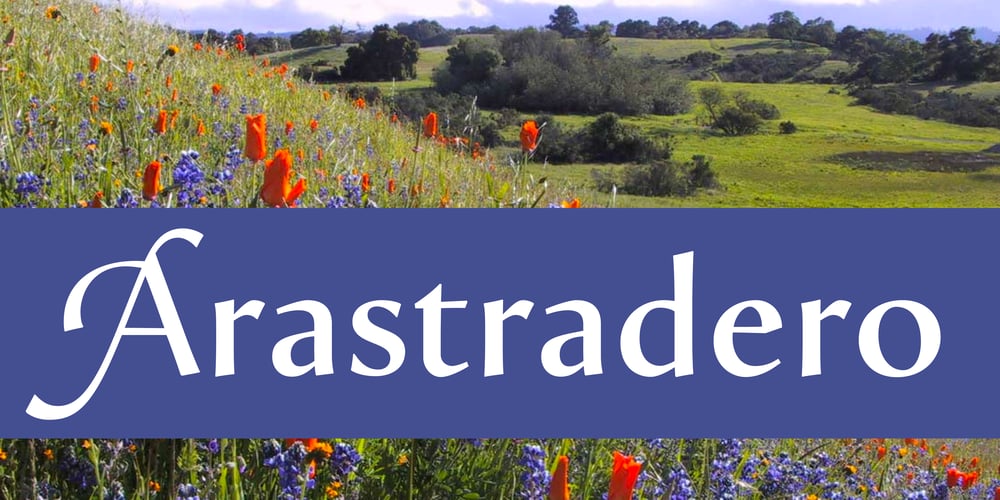
Arastradero Font Family was designed by Steve Matteson and published by Matteson Typographics. Arastradero contains 6 styles and family package options. Arastradero is a typeface based on broad-nib pen lettering and calligrapy. Classical proportions and shapes imbue a sense of trustworthiness and elegance to titles and text. Similar to Lydian, Arastradero is more elegant for text setting. Arastradero maintains an angled calligraphic stress, whereas Optima is entirely upright. Calligraphic alternative swash capitals and lowercase are included for fanciful headlines and invitations. Arastradero is named for the open space region in Palo Alto, California where the designer hiked, ran and biked among Live Oak and Eucalyptus trees.